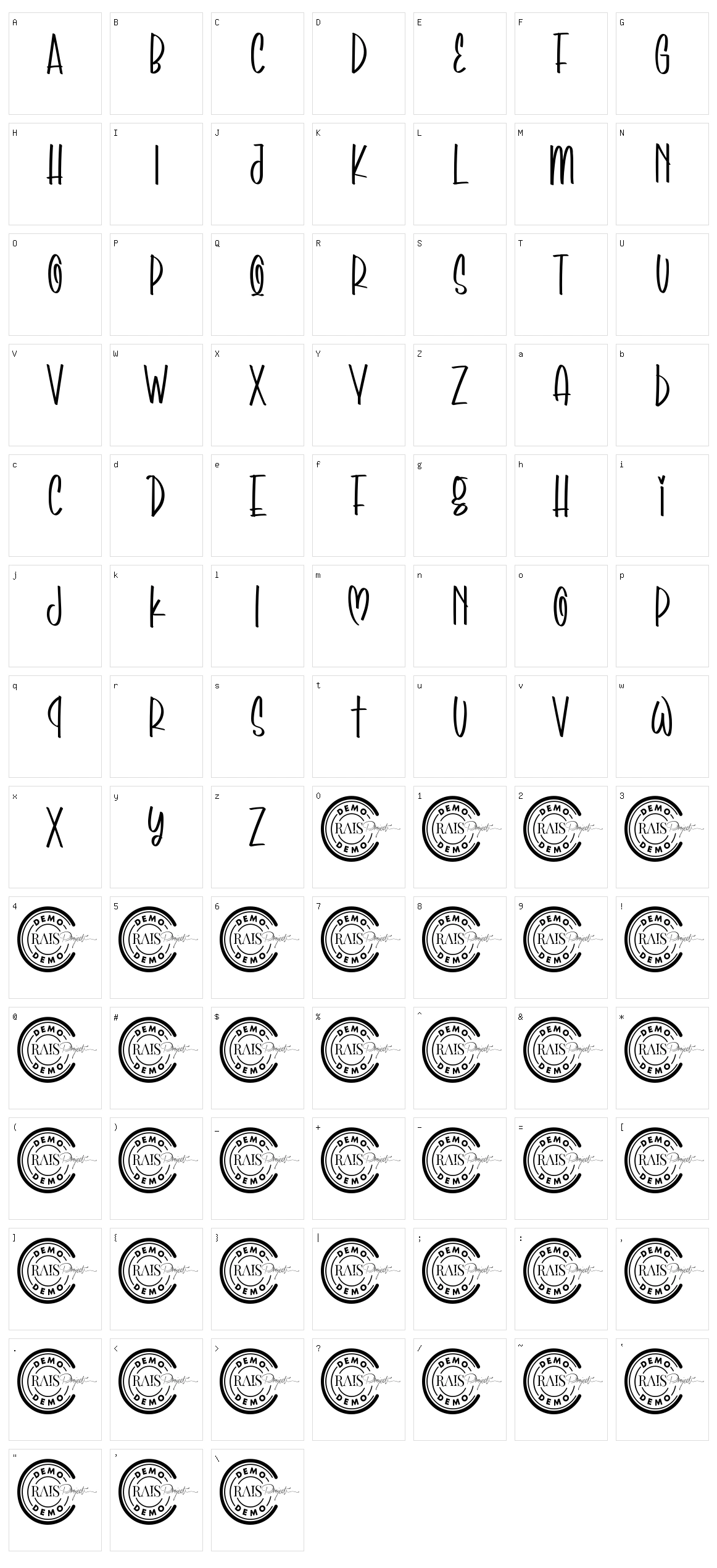
The free font Cute Symphony is carefully designed by RaisProject, showcasing a thoughtful balance of creativity and usability and falls under the Script font style. When you download the ZIP file, it contains only 56.18 KB of font files, making it lightweight and quick to download. Please review the license details below to understand permitted usage and distribution rights. If license information is not available, we recommend using this font for personal projects only or contacting the author directly for commercial usage permissions.